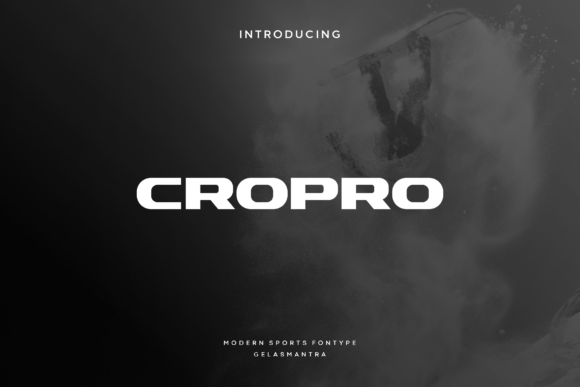
Step into the arena of captivating typography with Cropro Font, the ultimate display font that embodies the essence of modern aesthetics. Experience the thrill of a font that effortlessly blends the formal and playful, opening up a world of design possibilities like never before.
Crafted by the ingenious minds at garismantra, Cropro Font is a masterpiece of simplicity and modernity, infused with a touch of sporty flair. Its firm shape exudes a sense of athleticism, while its versatility seamlessly adapts to both serious and lighthearted designs.
Unleash your creativity and let Cropro Font ignite your imagination. Dive into a boundless realm of possibilities, from sleek logos and dynamic headlines to captivating posters and eye-catching social media graphics. Cropro Font will elevate your designs, making them stand out from the crowd with its distinct and captivating style.
The beauty of Cropro Font lies in its ability to captivate and inspire. Its unique charm effortlessly blends formal sophistication with a playful touch, making it the perfect choice for a wide range of design projects. It's a font that speaks to both the serious and the lighthearted, inviting you to explore new horizons of creativity.
So, if you seek a font that will transform your designs into stunning works of art, look no further than Cropro Font. Its modern aesthetic and captivating charm will leave a lasting impression on your audience, making your designs shine brighter than ever before.